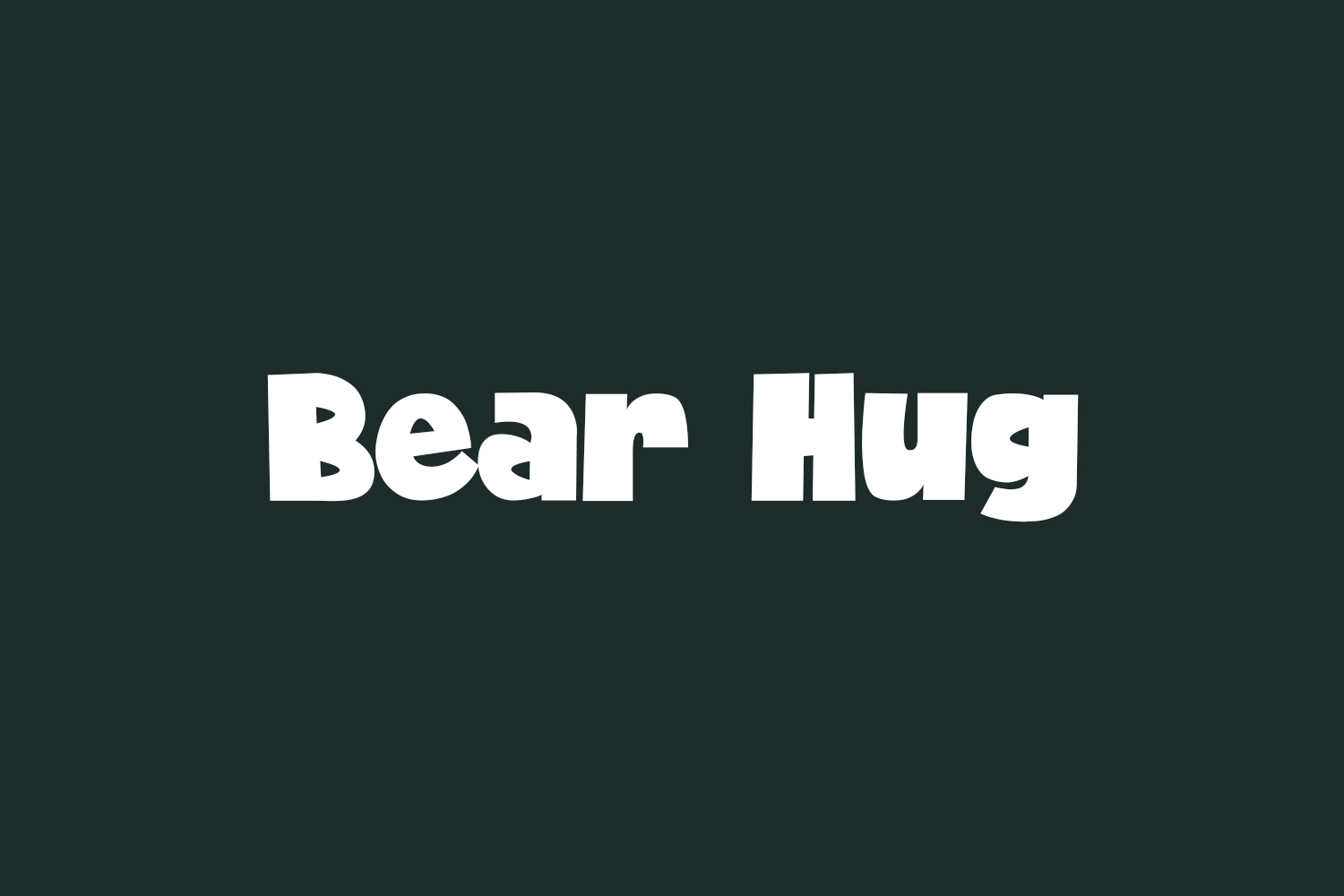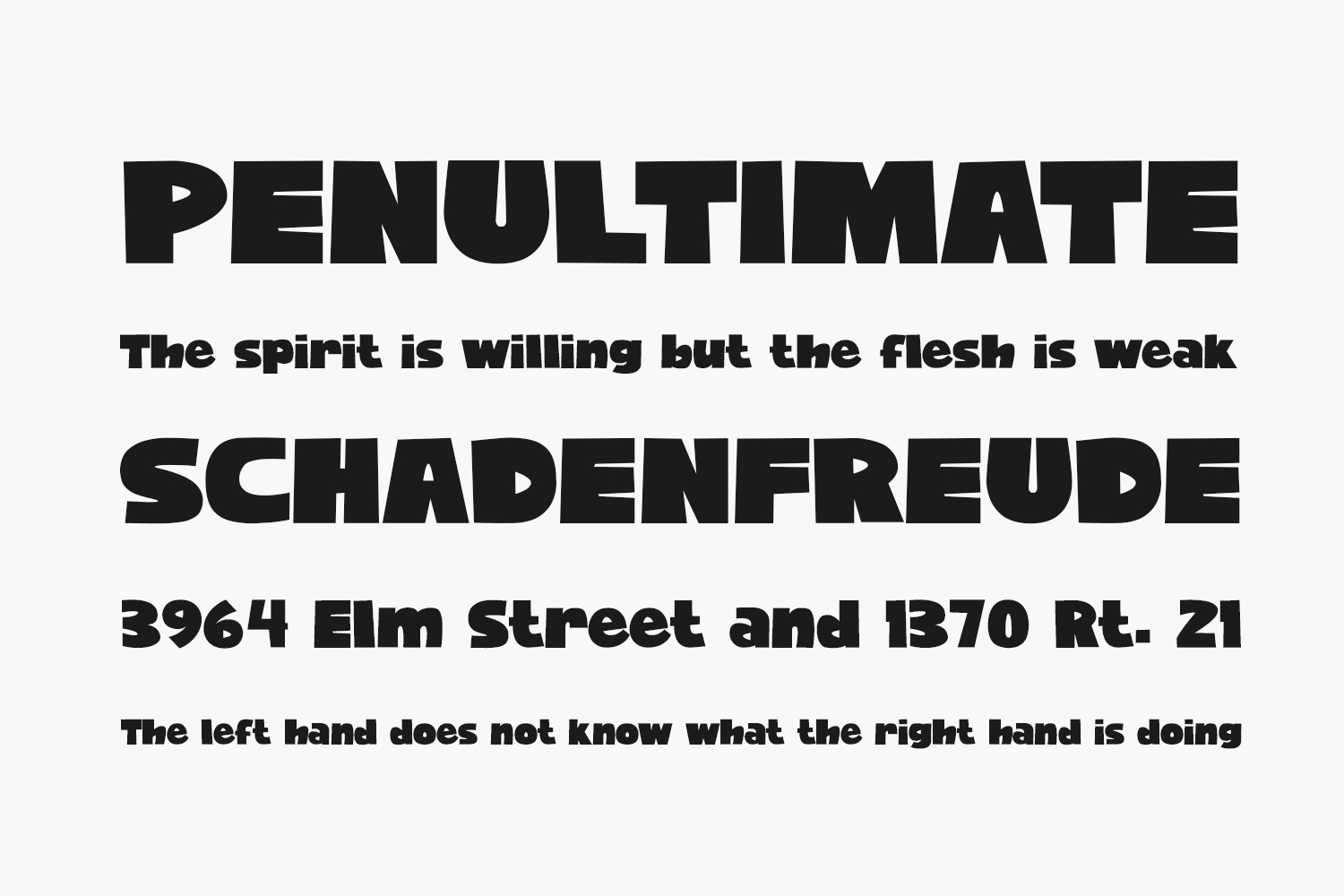
Experience the playful charm of Bear Hug Free Font, a delightful twist on the classic bold sans-serif font that adds a touch of fun to any text it graces. This font is a perfect match for projects featuring mature, provocative, and motivational themes. From captivating books for the market to eye-catching economic posters, stylish stationery, school supplies, YouTube covers, thumbnails, and social media page covers, Bear Hug stands ready to elevate your designs. Embrace Bear Hug and infuse your creations with its unique charisma, making them truly shine across all platforms and mediums. Bear Hug Free Font is free for personal use only. Please purchase the full version for commercial use.
Designed by Pinisiart